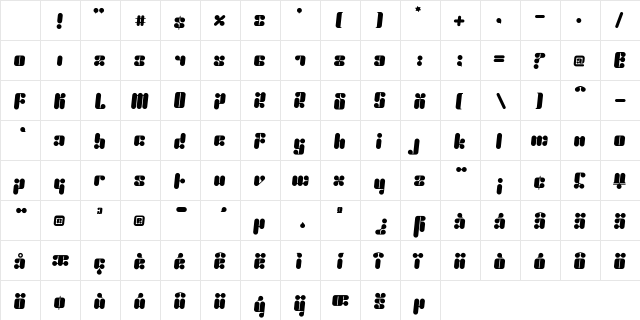
Complete 1Proton Regular glyph index. Displaying only characters natively supported by 1Proton Regular font.
1Proton is a composed and adaptable typeface that performs quietly and consistently across a wide range of design contexts.